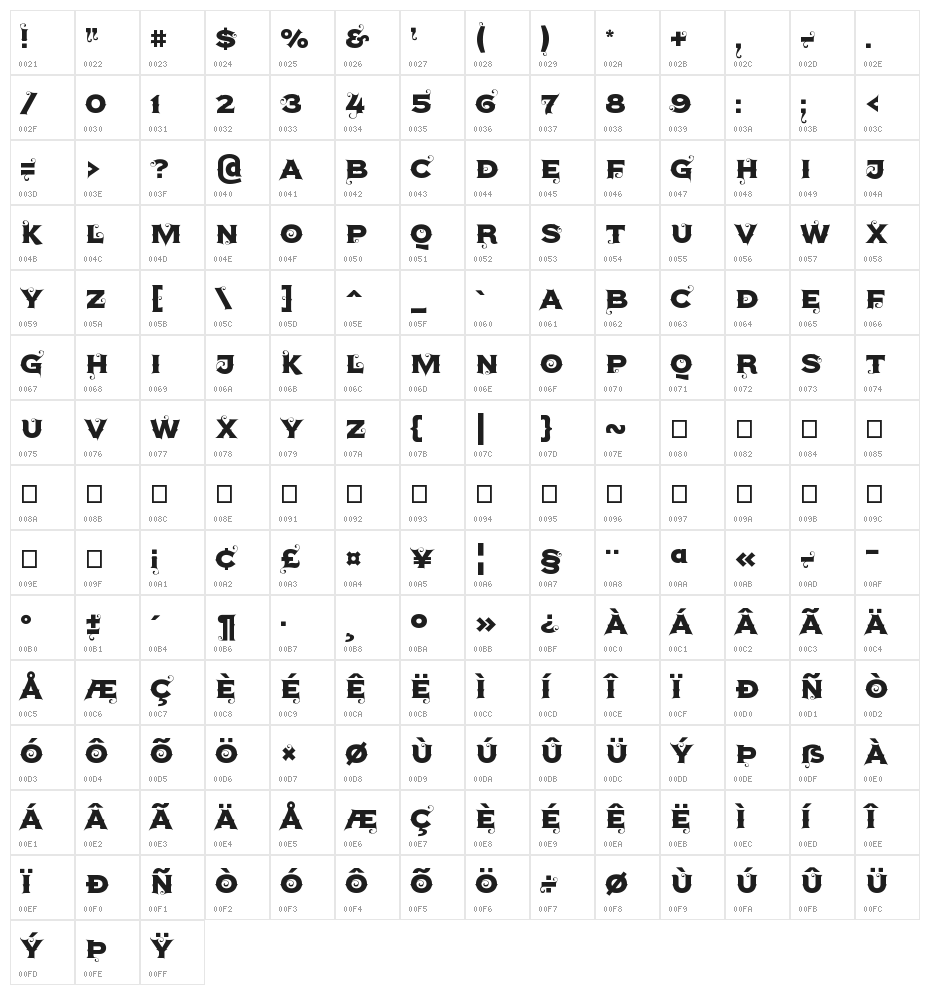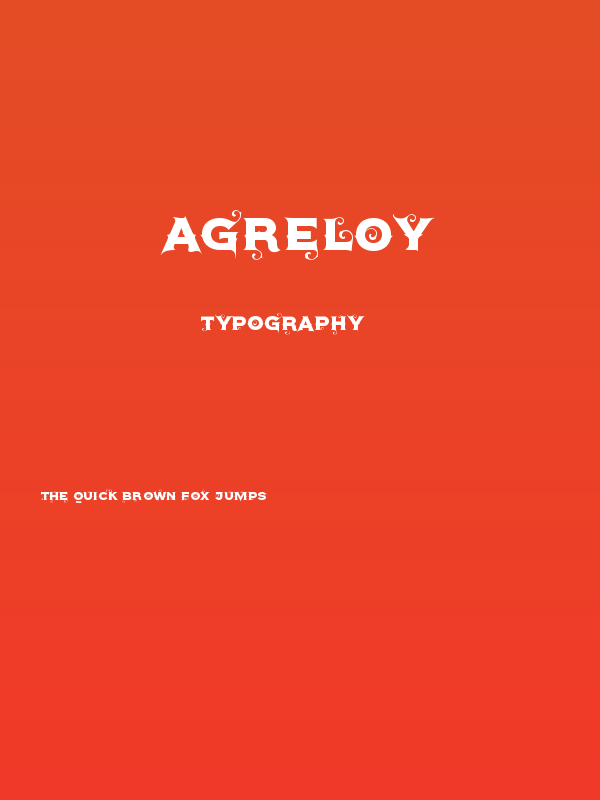
Agreloy Font
Agreloy Description
This font features a bold and decorative style with intricate swirls and flourishes extending from the ends of the characters. The uppercase letters are particularly ornate, with each character exhibiting unique embellishments that add a sense of elegance and flair. The lowercase letters maintain a consistent style, complementing the uppercase with slightly less ornamentation but still retaining the decorative essence. The numbers and special characters follow the same design principles, ensuring a cohesive look across all elements. This font is ideal for projects that require a touch of sophistication and creativity.
| Proposed Projects | Ideal for invitations, posters, branding, and any design requiring a decorative touch. |